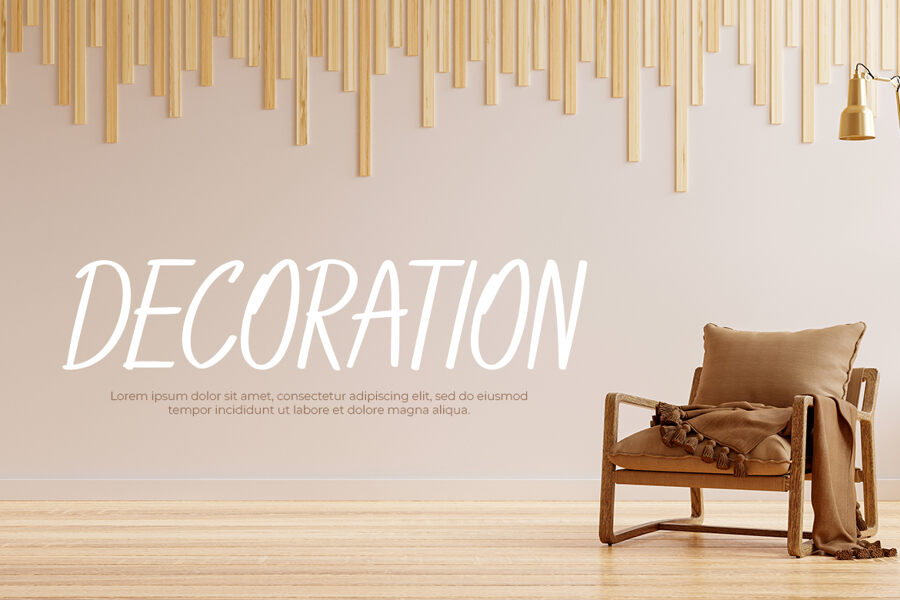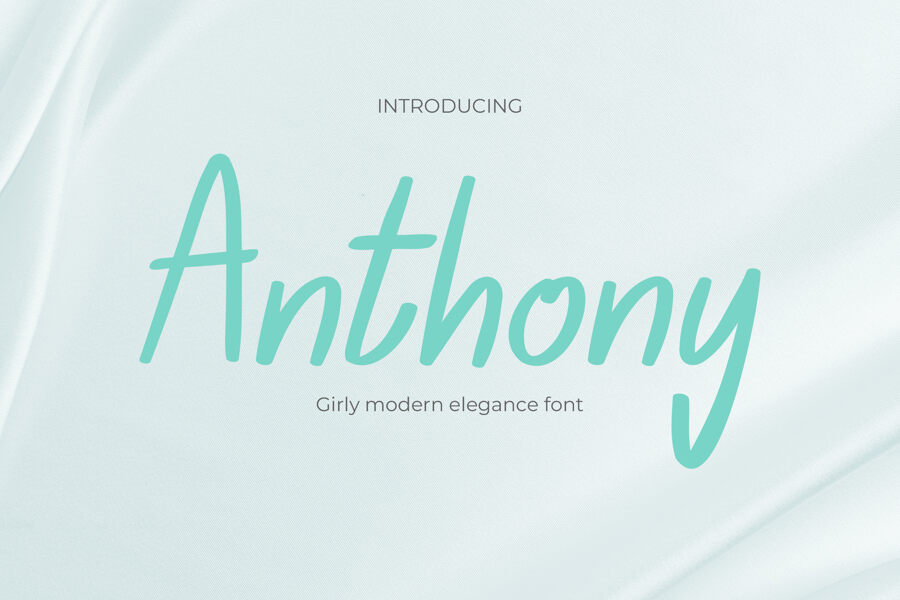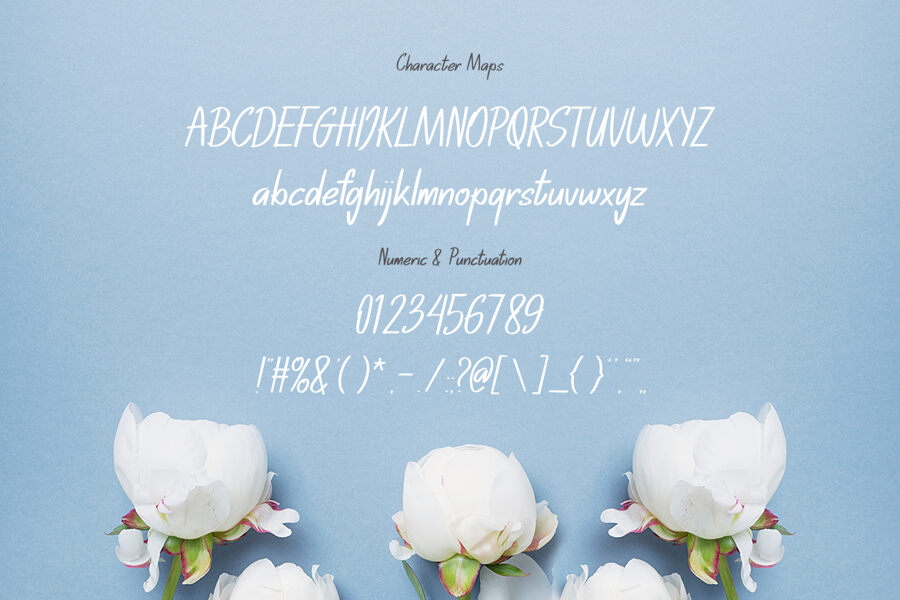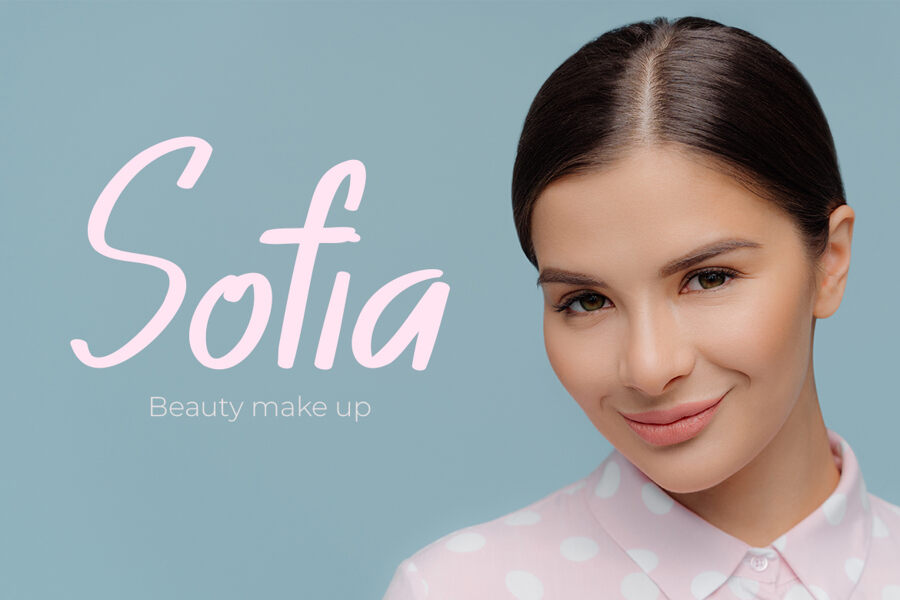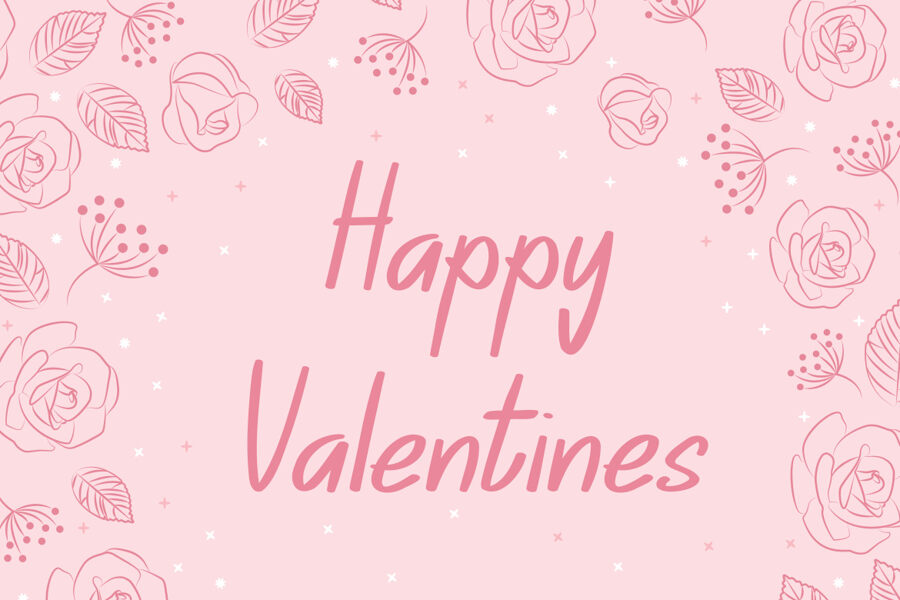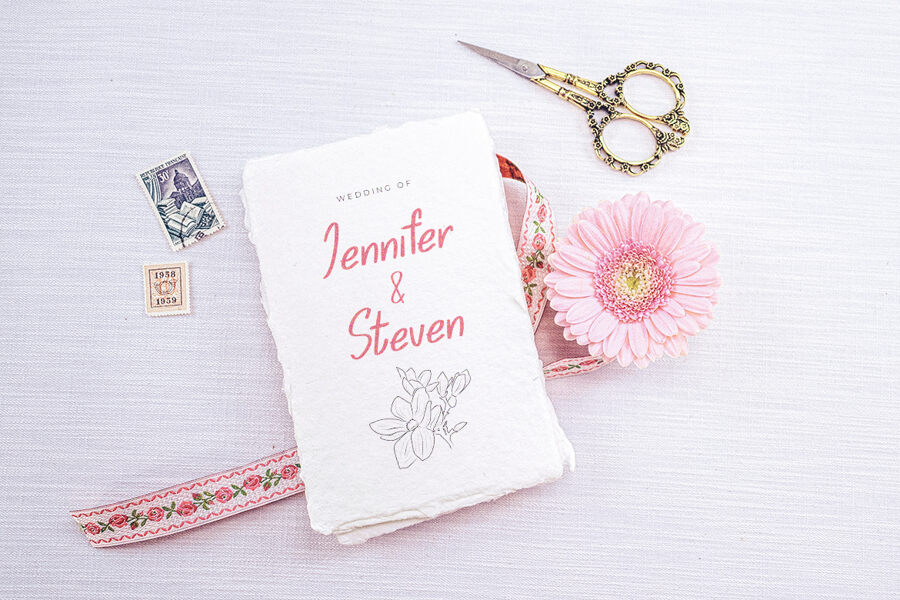
Anthony Font
Anthony is a modern script font that combines the warmth of hand-lettering with a sleek, flowing style. Its elegant curves and refined lines create a sophisticated, approachable look, making it perfect for projects that require a personal touch. The font strikes a stylish balance between fluidity and structure, blending readability with visual appeal.